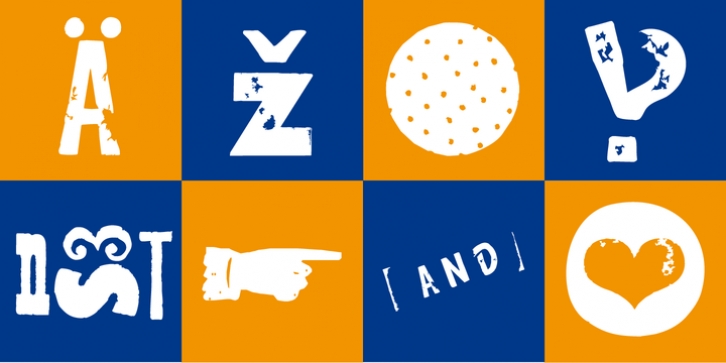
7 font styles (Reg + Mix, Circle, Diamond, Square Star + Icons) each with 1350+ glyphs incl. 200+ decorative extras like icons, arrows, dingbats, emojis, symbols, geometric shapes, catchwords, decorative ligatures (type the word LOVE for ♥ or SMILE for ☻ as OpenType-Feature dlig) and stylistic alternates (9+ stylistic sets). For use in logos, magazines, posters, advertisement and packaging plus as webfont for decorative headlines. The font works best for display size.
1350+ glyphs with 200+ extra icons like arrows, dingbats, symbols, geomatric shapes, catchwords and many alternative letters. (9× A–Z, 9× a–z, 9× 0–9)
For use in magazines, posters, headlines and advertisement, plus as webfont for decorative headlines.
â– Font Name: Hand Print Stamp Rough
â– Font CateÂgory: Sans Serif + Slab Serif DisÂplay for HeadÂline Size
â– SpeÂcials: 200+ decoÂraÂtive extras like icons for arrows, dingÂbats, emoÂjis, symÂbols, geoÂmeÂtric shapes, catchÂwords + GerÂman CapiÂtal Eszett.
Open Type FeaÂtures: Kerning (kern), StyÂlistic Set 1 (ss01) ... StyÂlistic Set 16 (ss16), LocaÂliÂzed Forms (locl), SuperÂscript (sups), OrdiÂnals (ordn), Slashed Zero (zero), FracÂtions (frac), StanÂdard LigaÂtures (liga), ConÂtextÂual AlterÂnaÂtes (calt) e. g. StyÂlistic Set-Loop and DecoÂraÂtive LigaÂtures (dlig) e. g. type the word "LOVE" for ⤠or "SMILE" for ☺